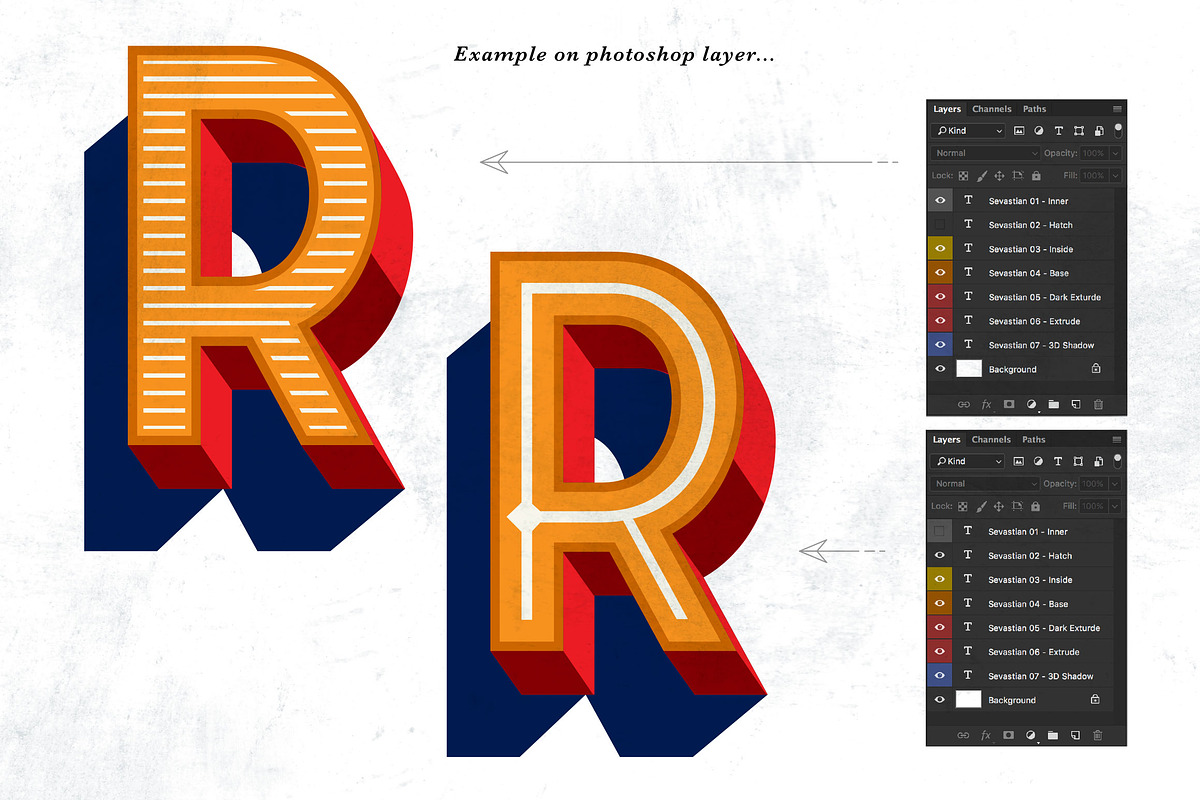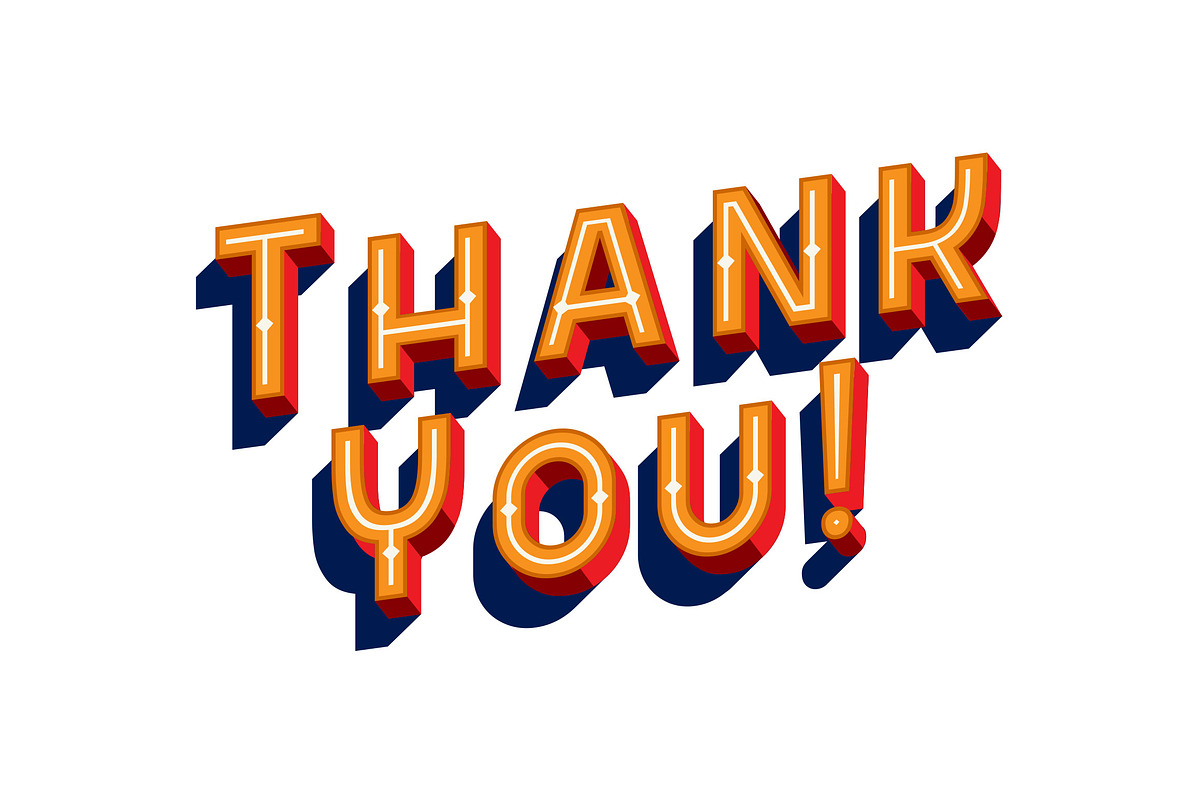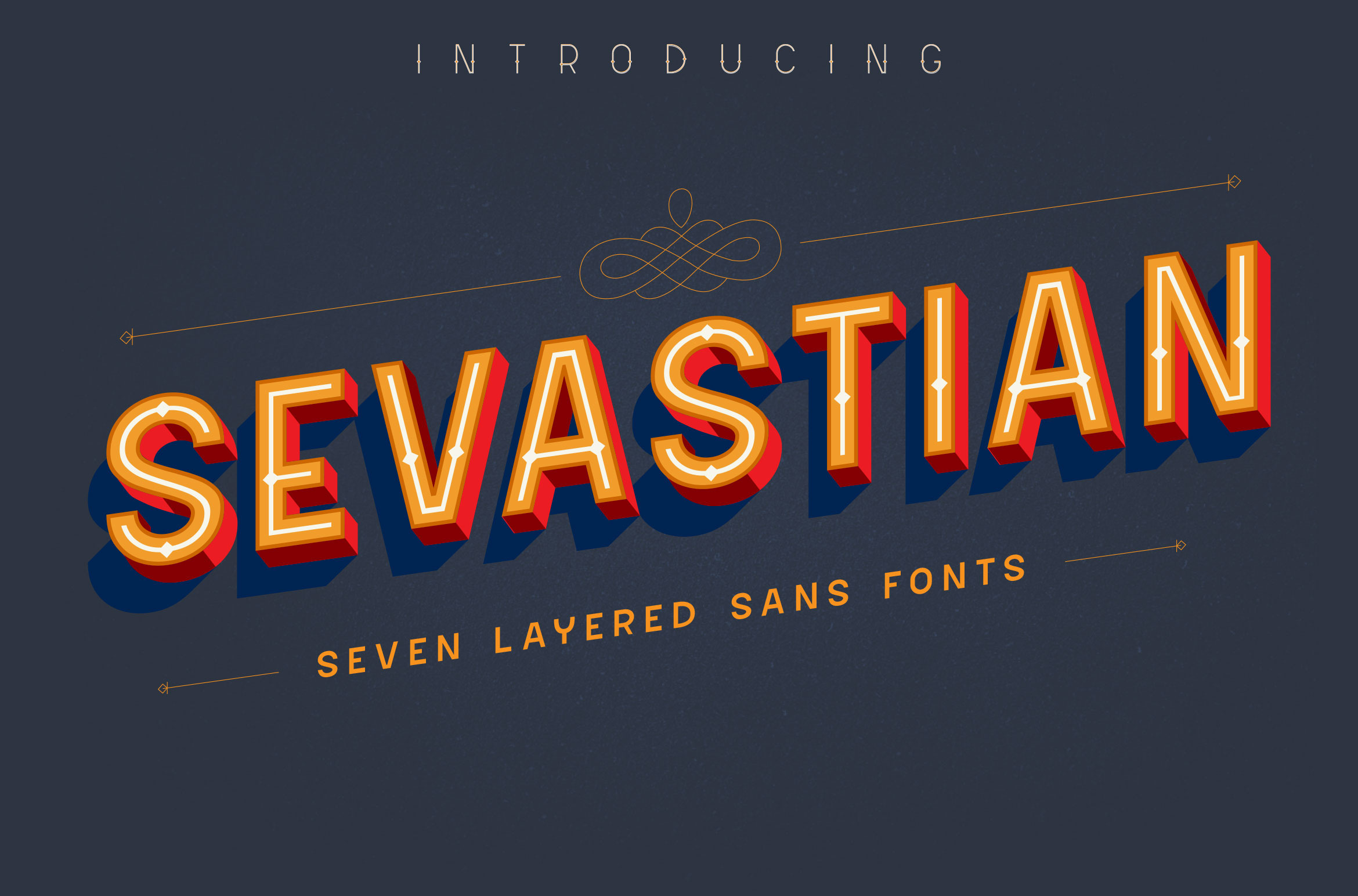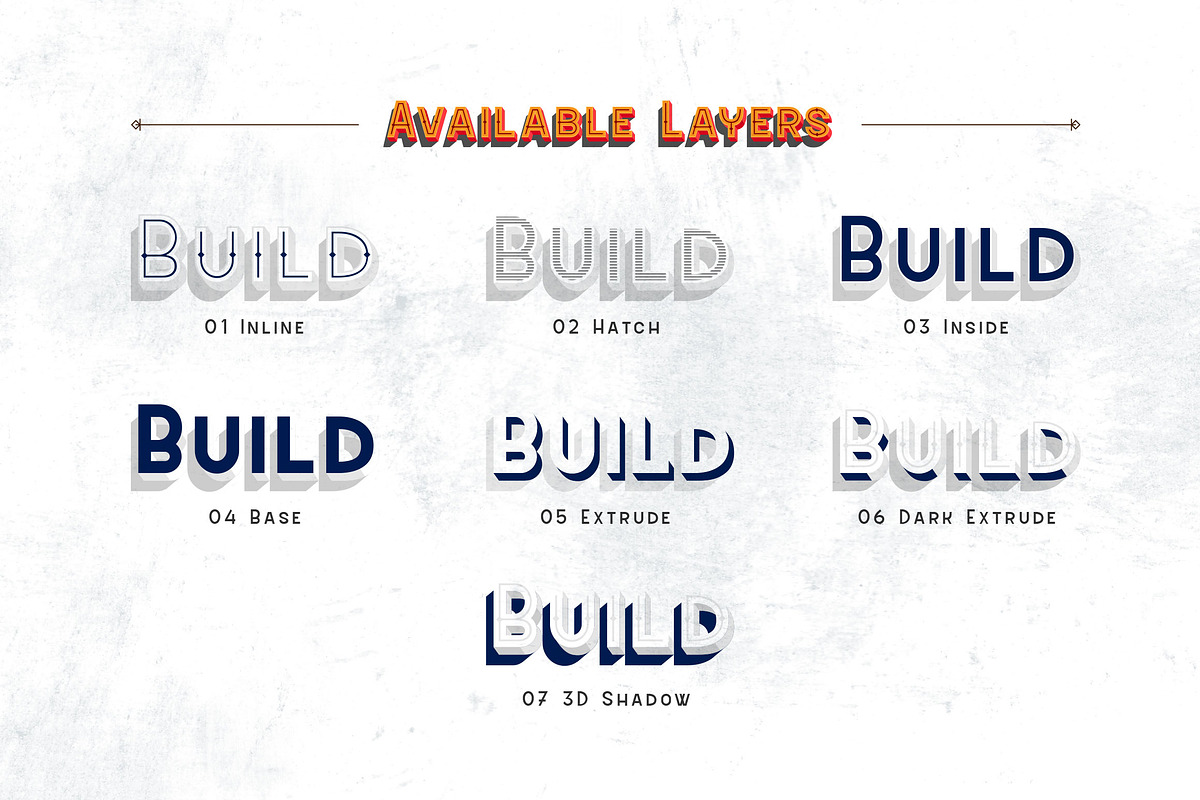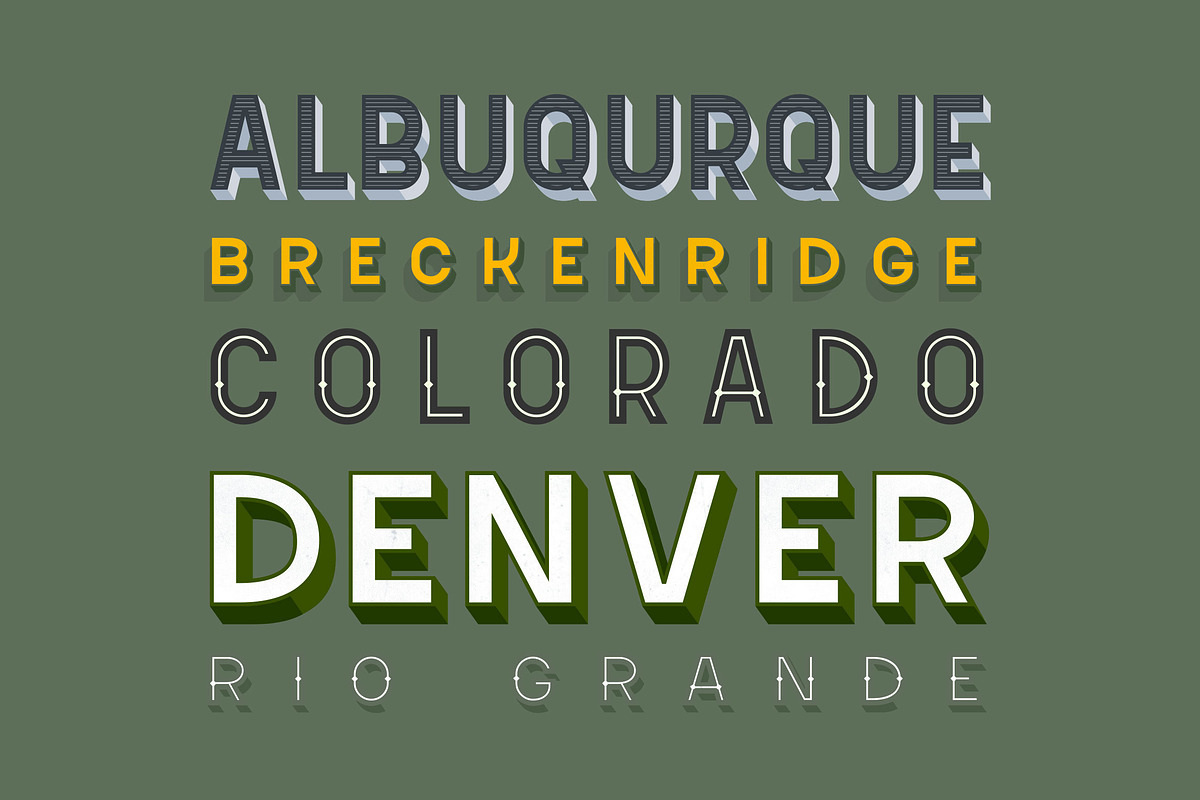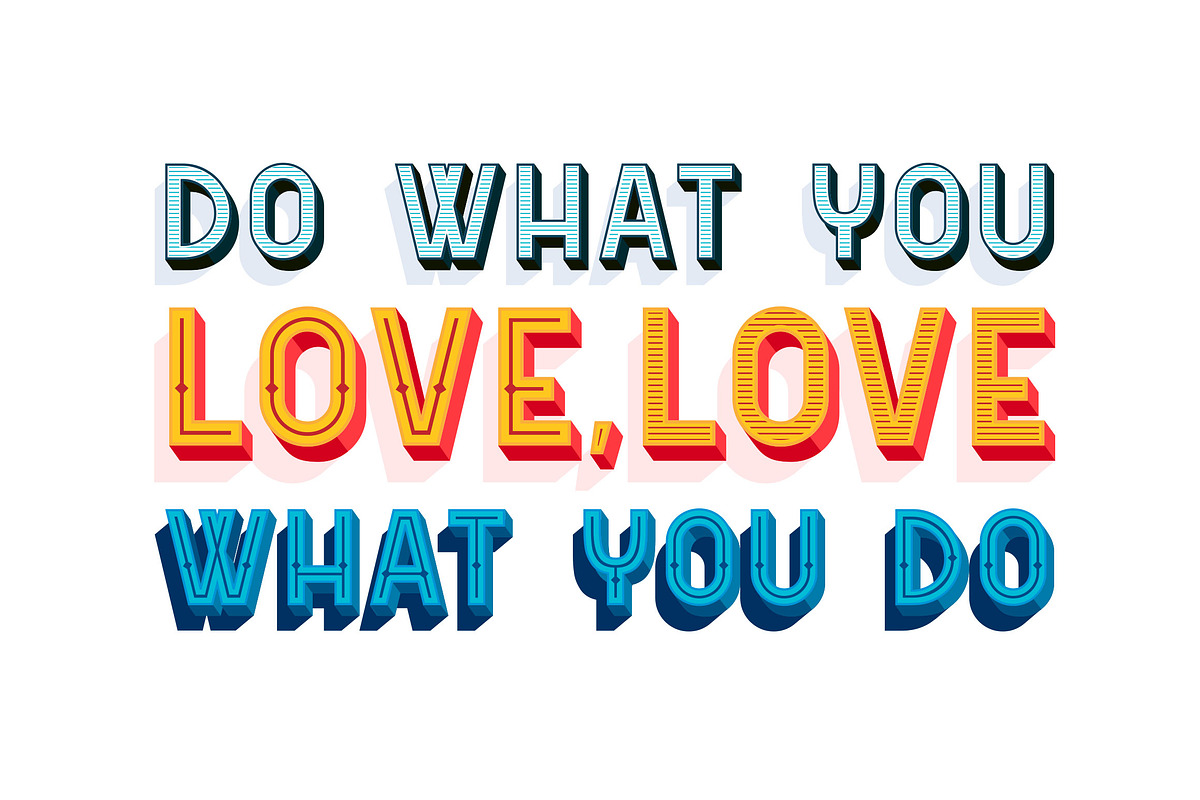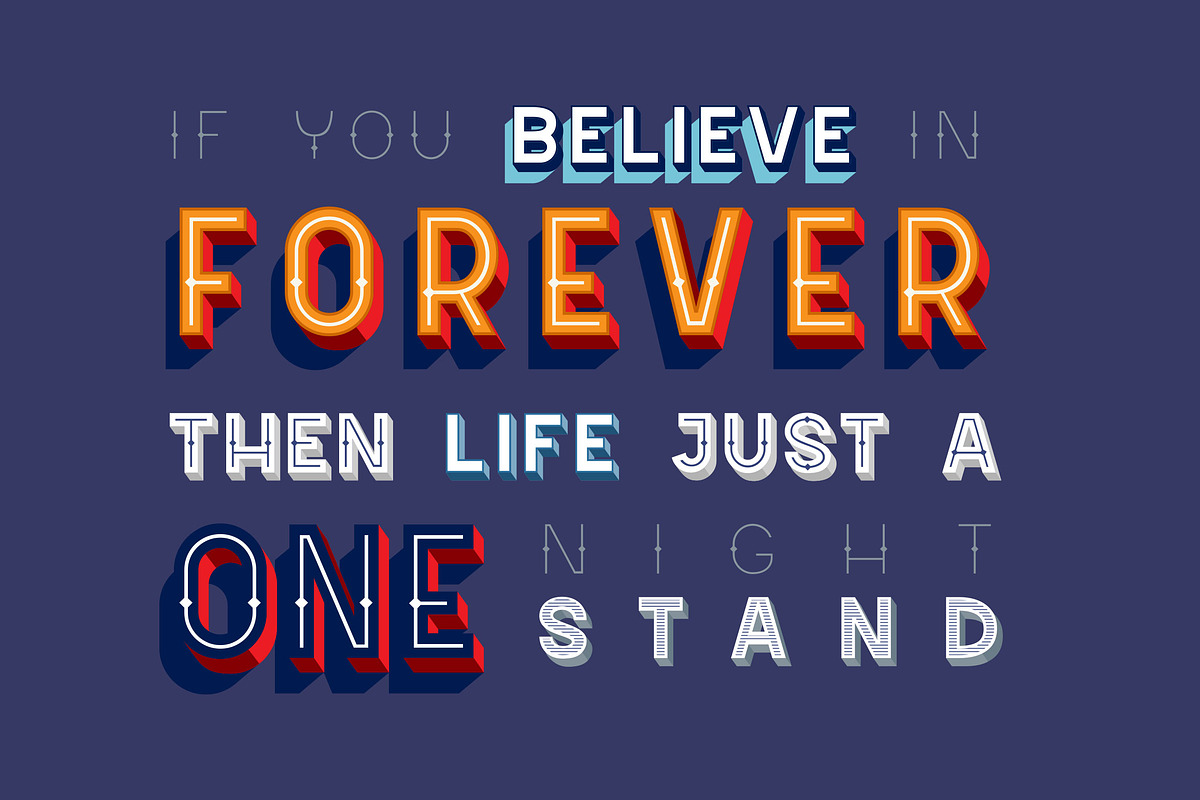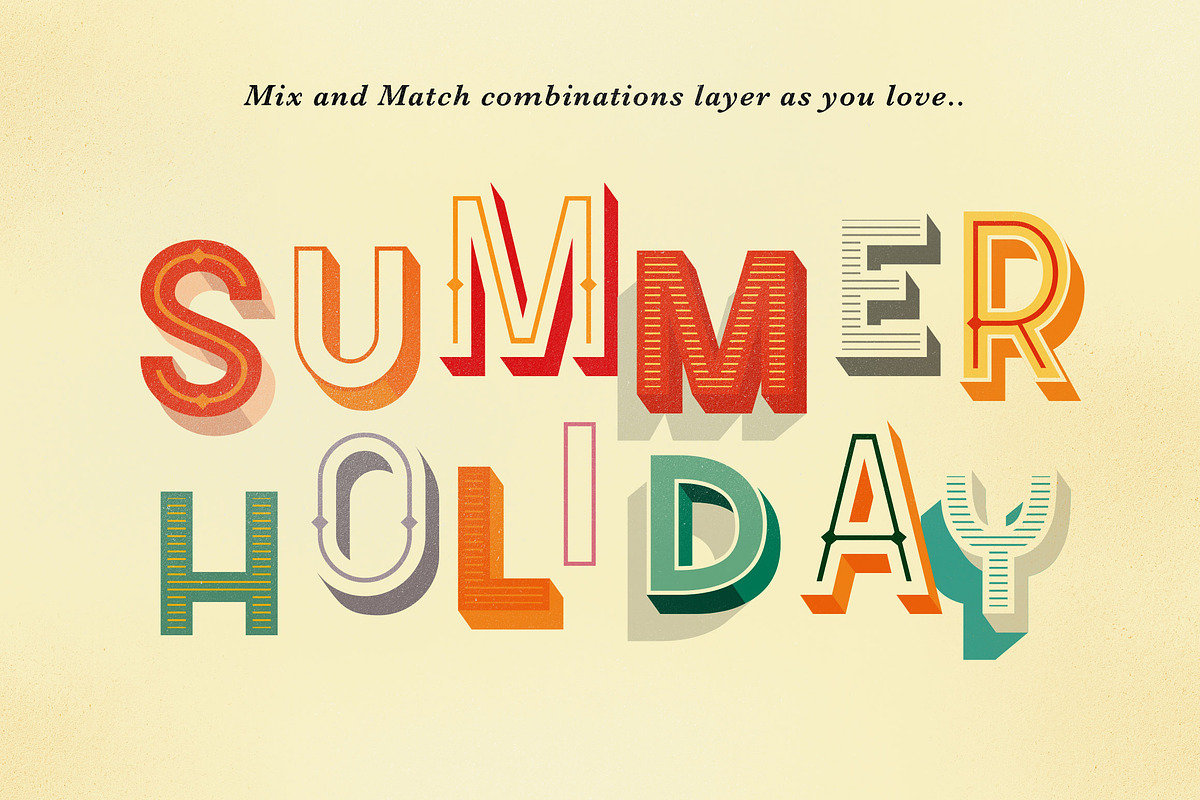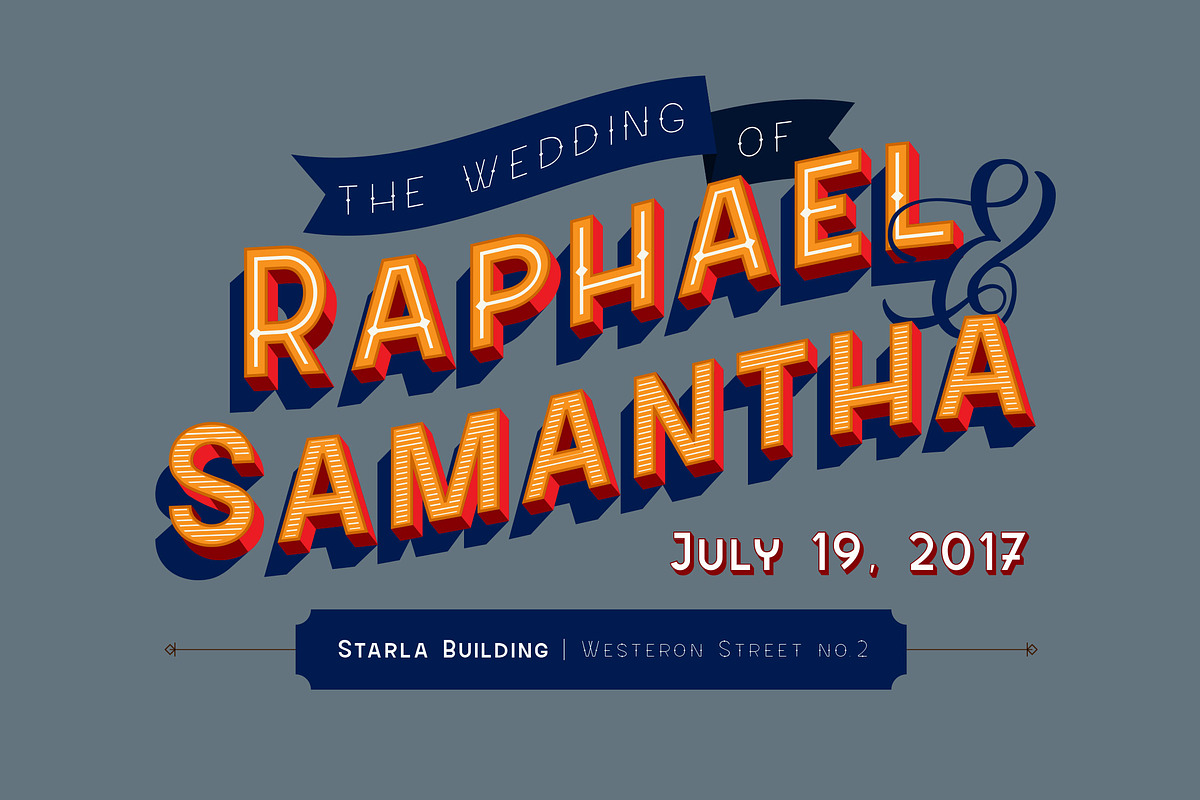
Sevastian Layered Typefaces
I N T R O D U C I N G
S E V A S T I A N - Seven Layered Fonts
Imagine that before the digital world wasn't exist, Artist or SignPainter made so many beautiful artwork with limited tools. expressing their era, their style and their tradition. Especially on the Typography, they are made their artwork more life by adding shadow for look a like 3D object for their 2D artwork. Inspired by that, I've made a type system with using layer on this Digital Era.
Sevastian Typefaces are coming for help the artist who want to create 3D lettering without special effects. Also you can use with different color, different style, and different combinations using 7 layer I've made. Font Naming are important for you to generate where at the top and where at bottom. Sevastian made it so easy because there is a number before the name like Sevastian - 01 inner until Sevastian - 07 3D Shadow. It means, the lowest number are must on top of them. As you can see on the display image I've been made, I use random combinations. So you can experiment what do you like most.
- Sevastian - 01 - Inner
- Sevastian - 02 - Hatch (Optional for Inner)
- Sevastian - 03 - Inside
- Sevastian - 04 - Base
- Sevastian - 05 - Dark Extrude
- Sevastian - 06 - Extrude
- Sevastian - 07 - 3D Shadow